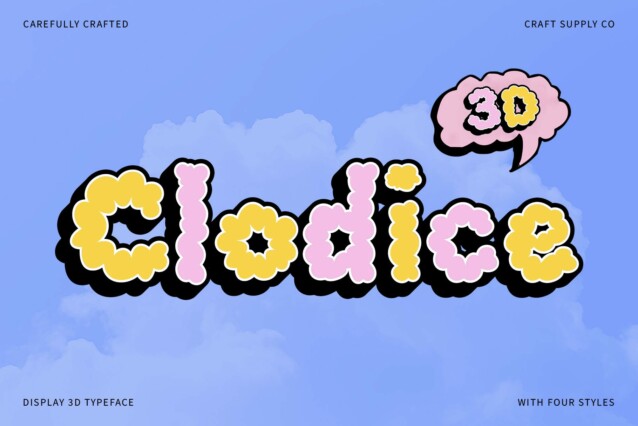
Clodice 3D Font
Clodice 3D Font is a delightful bubble display font that exudes a cute, funky, and cheerful vibe. Its round and plump letterforms are designed to convey friendliness and energy, making it an excellent choice for any project that aims to evoke a sense of joy and playfulness. This font effortlessly captures attention with its lively personality, perfect for designs that need to stand out.